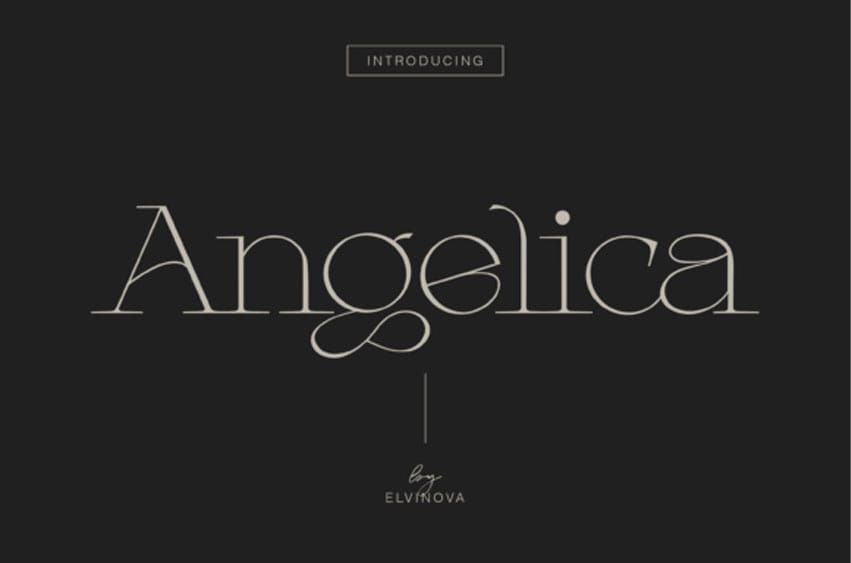
Angelica Font
Angelica Font is a stunningly elegant serif font that exudes sophistication and grace.
Perfect for luxury branding, wedding invitations, editorial design, and high-fashion projects, its delicate strokes and refined ligatures bring timeless charm to every design.